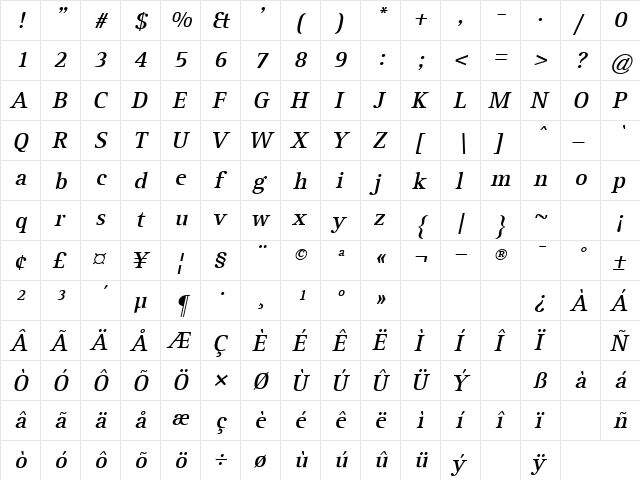
Sabot Bold-Oblique
Design Context for Sabot Typeface
Sabot takes a measured approach to typography — its balanced proportions and neutral character make it a reliable workhorse for both digital and print work. The slanted form adds forward momentum and visual energy. Its bold stroke weight gives it real presence on the page.
Pro Tip: Try Sabot for annotation and caption copy alongside an upright companion — the contrast in angle creates a dynamic but ordered typographic system.